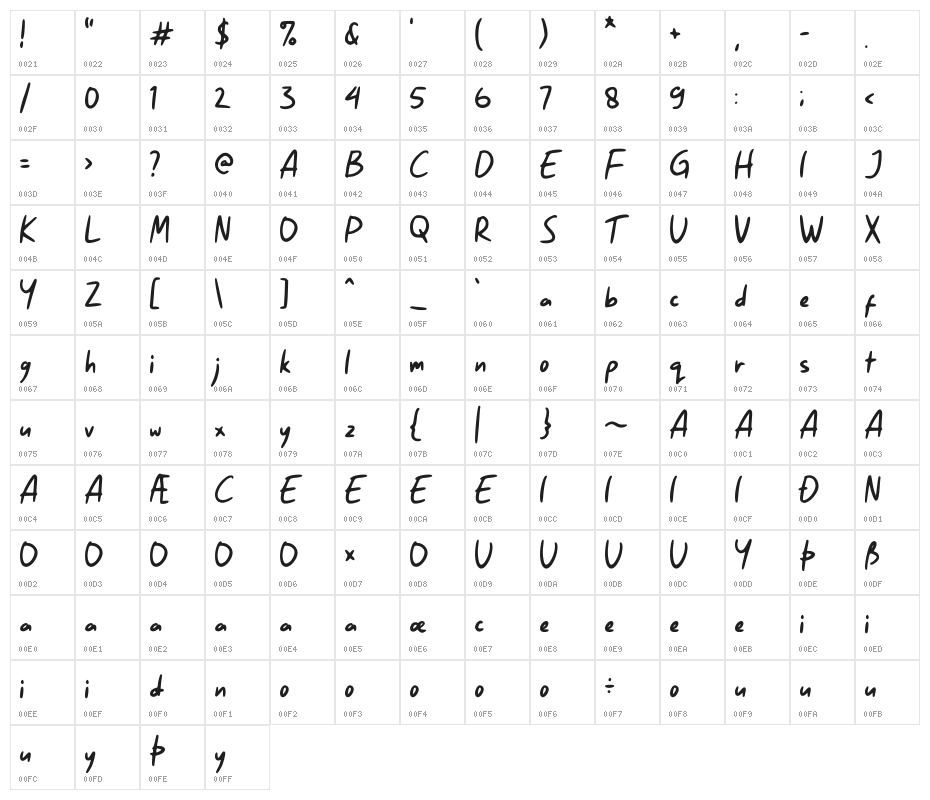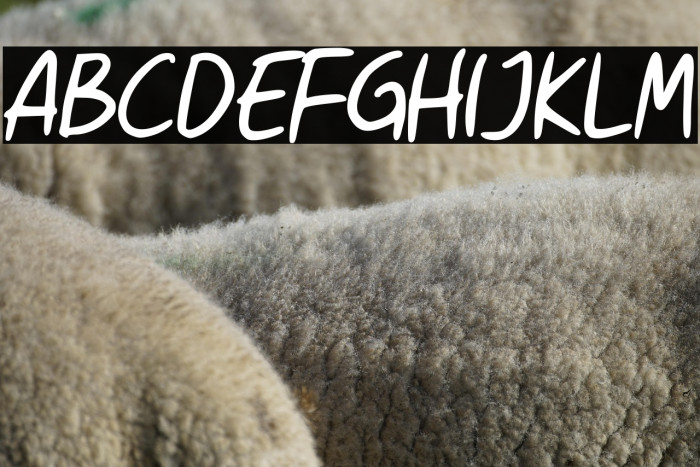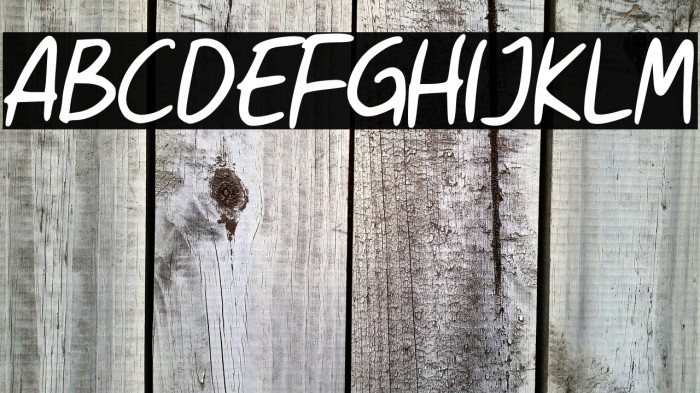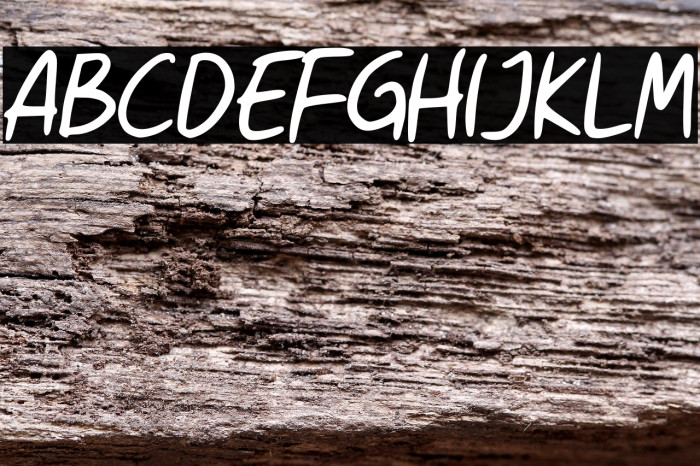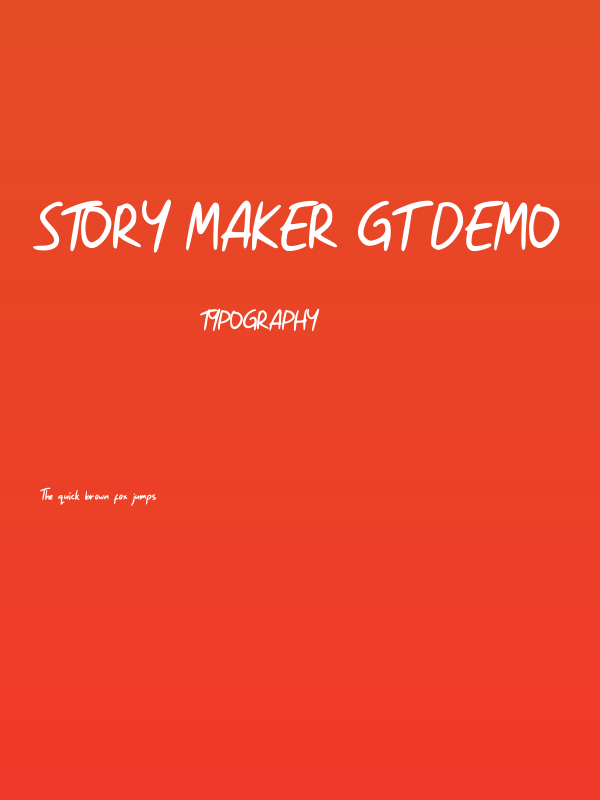
Story Maker GT Demo Font
Story Maker GT Demo Description
This font features a playful and casual handwritten style, characterized by its smooth, flowing lines and slightly irregular shapes. The uppercase and lowercase letters exhibit a consistent stroke width, giving it a balanced appearance. The numerals and special characters maintain the same informal and approachable aesthetic, making it suitable for projects that require a personal touch. The font's overall look is friendly and inviting, with a modern twist that adds to its versatility.
| Proposed Projects | Ideal for children's books, greeting cards, personal blogs, and informal branding. |